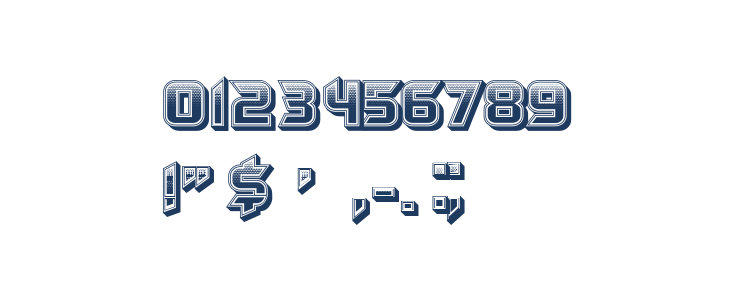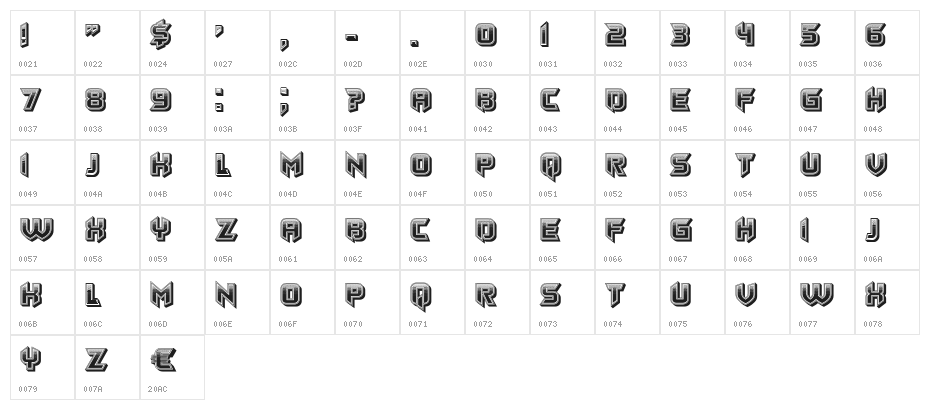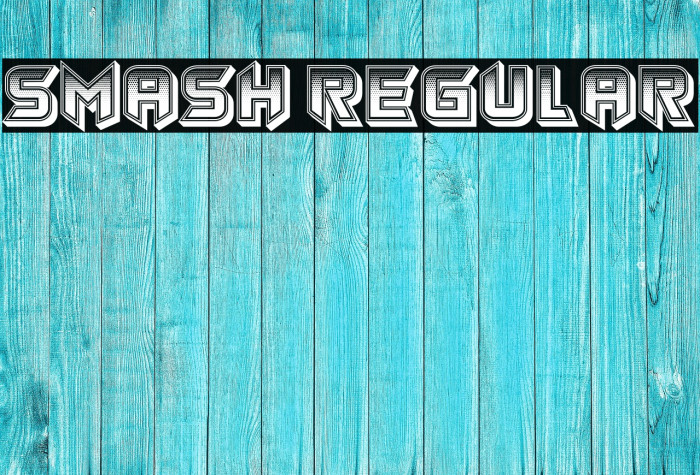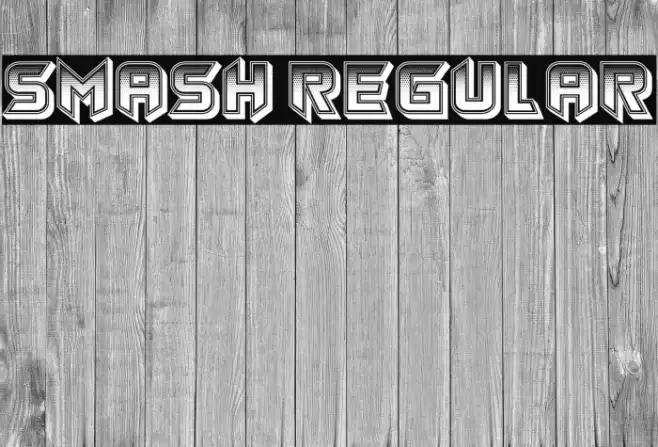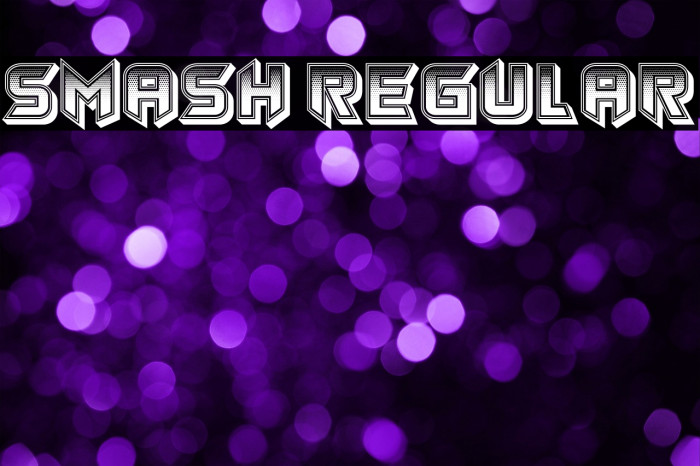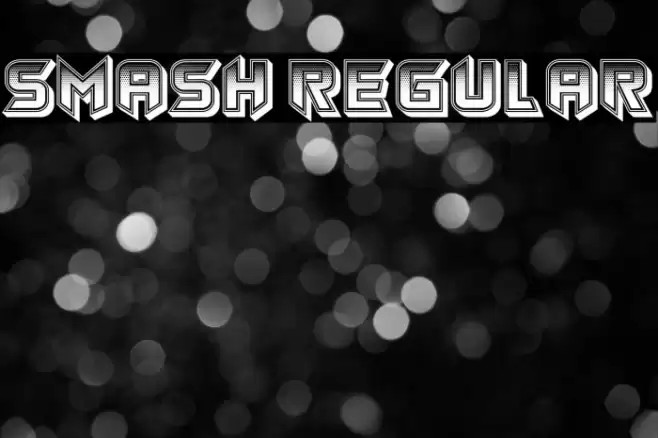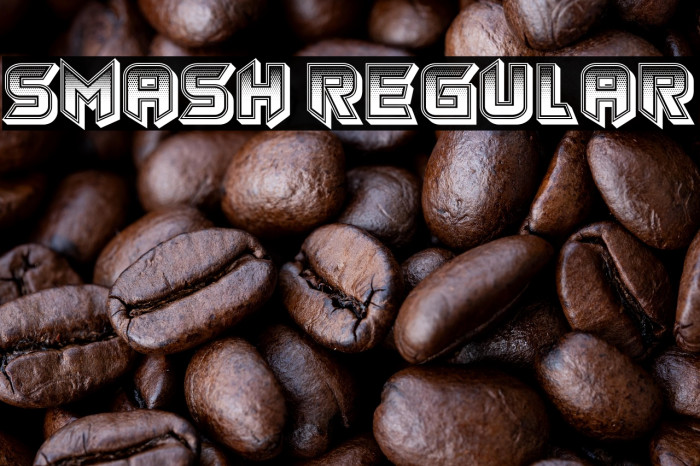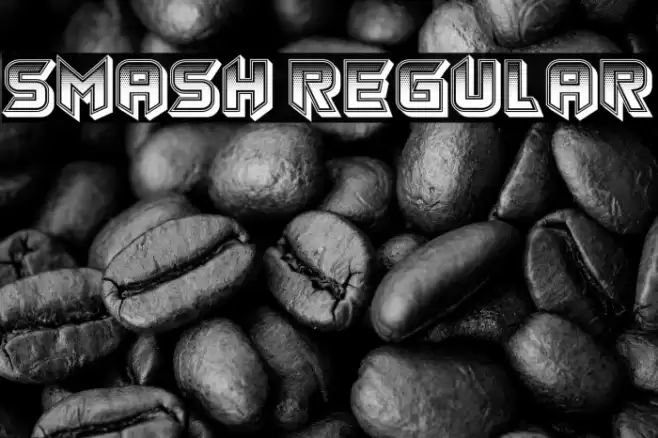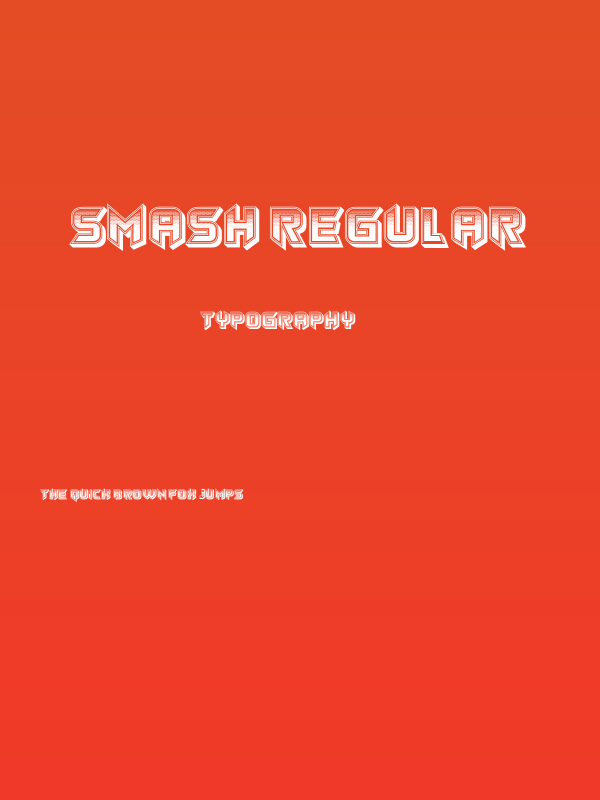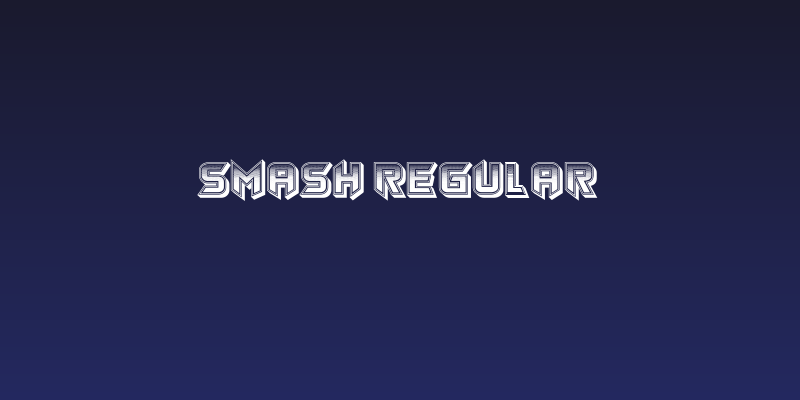
Smash Regular Font
Smash Regular Description
This font features a bold, three-dimensional appearance with a strong geometric structure. Each character is outlined with a thick border, giving it a striking and impactful look. The interior of the letters is filled with a dotted pattern, adding texture and depth. The angular design and sharp edges contribute to a modern and dynamic aesthetic, making it ideal for attention-grabbing headlines or titles. The font's unique style is both playful and assertive, suitable for projects that require a bold statement.
| Proposed Projects | Ideal for posters, video game titles, comic book covers, and branding that requires a bold and dynamic presence. |